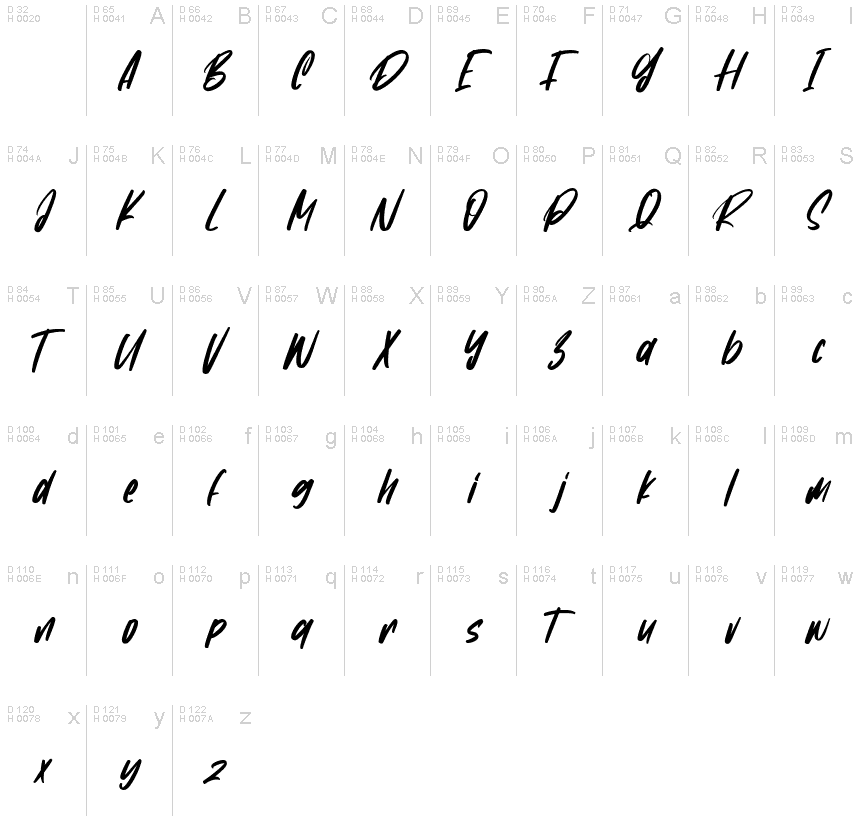
Hookypilots Free Regular
Hookypilots is a bold and dynamic handwritten font by Maulana Creative, perfect for projects that require a personal and expressive touch. Its condensed width adds an extra level of impact, making it suitable for everything from logos to packaging designs. With its marker-like strokes, Hookypilots exudes energy and authenticity, making it an excellent choice for anything from social media graphics to t-shirt designs. Whether you're looking to add some personality to your branding or create eye-catching visuals, Hookypilots is sure to make your message stand out.